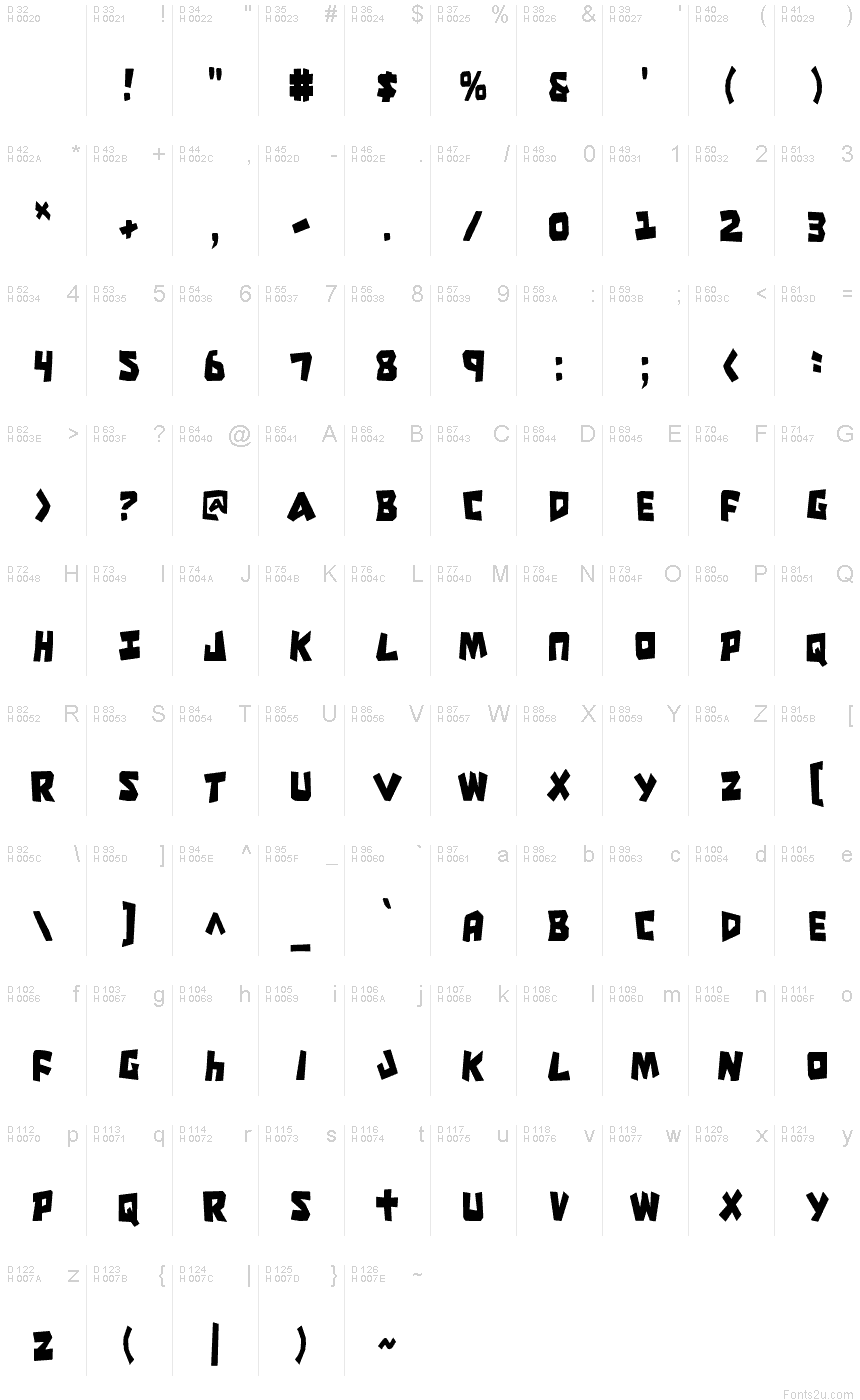
Cro-Magnum Condensed
Cro-Magnum Condensed font by Dan Zadorozny of Iconian Fonts is a free cartoon font with hulking, irregular letterforms that feel hand-cut and thrown onto the page. The tall, blocky shapes lean and wobble just enough to add energy, while the tight counters keep the wordmark bold and readable at a glance, even on busy backgrounds.
Using Cro-Magnum Condensed, you can bring punch to gig posters, comic titles, game logos, zines, YouTube thumbnails, and bold merchandise graphics. The chunky rhythm of this free font shines on short words and stacked lines; try pairing it with a simple condensed sans serif for body copy and keeping it oversized so the rugged silhouettes really smack off the screen.